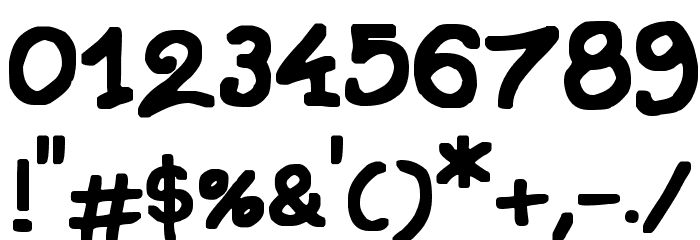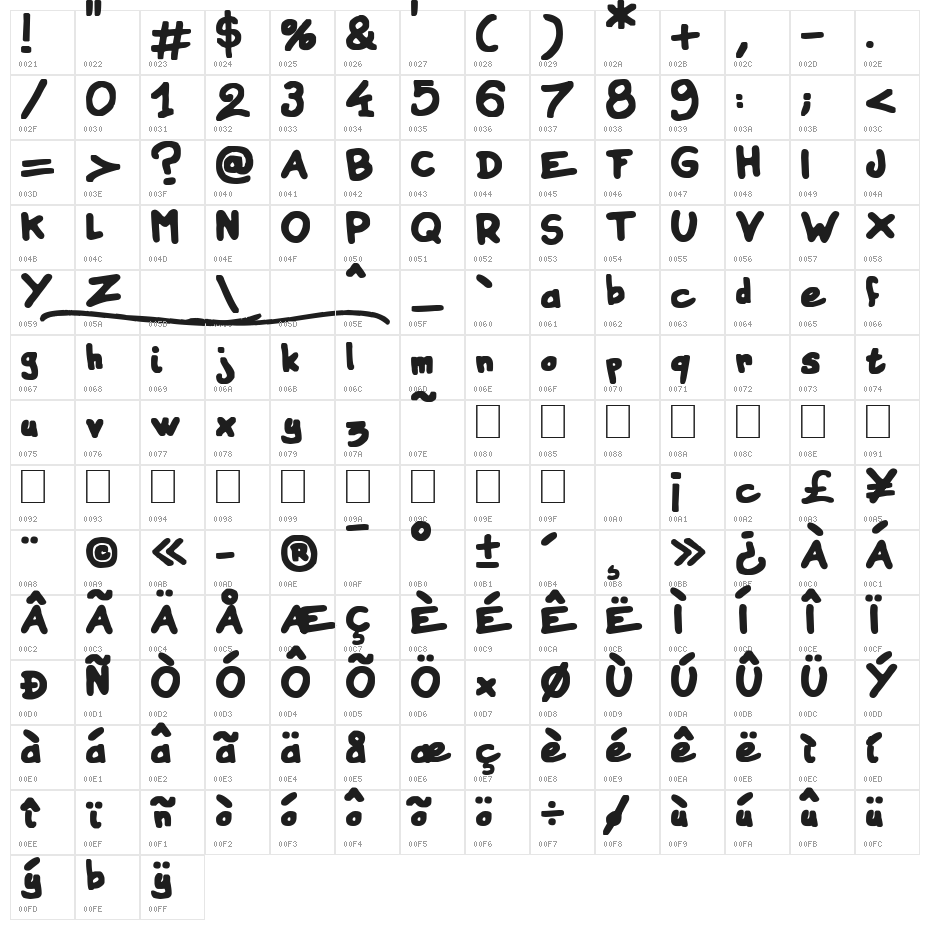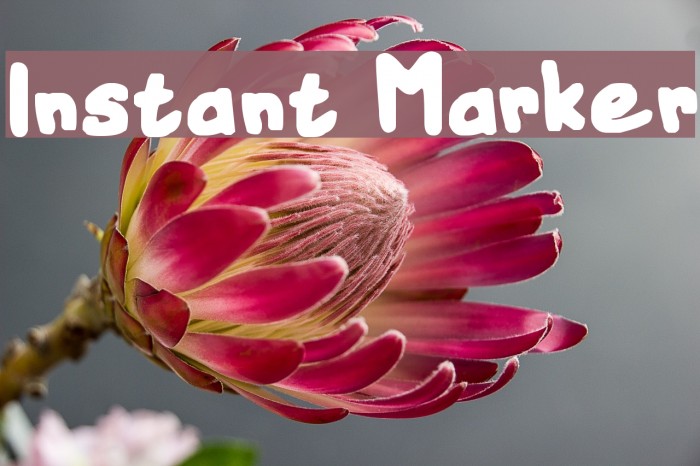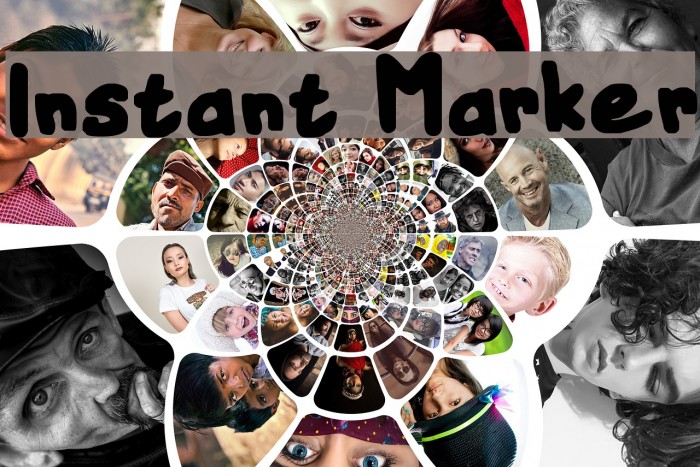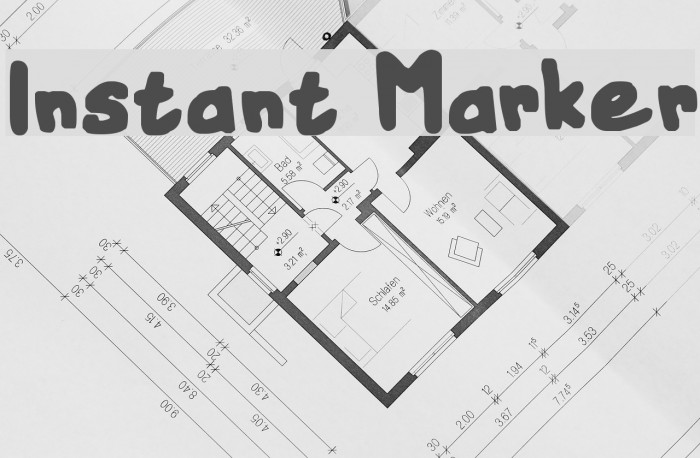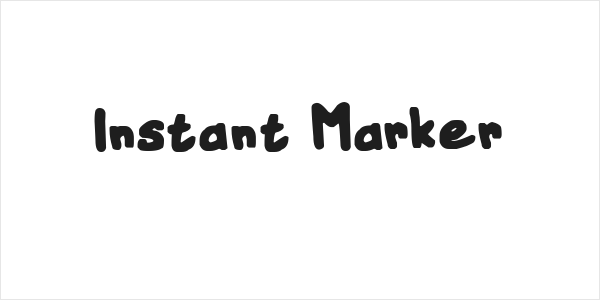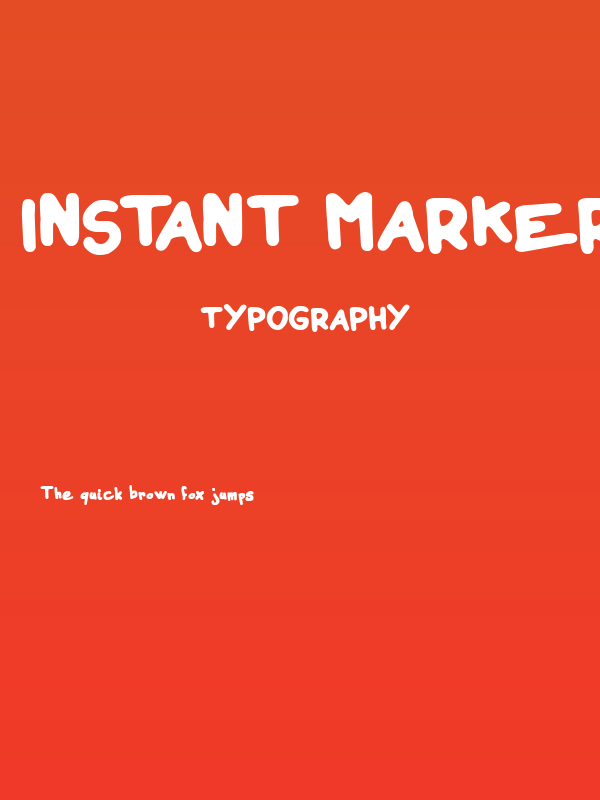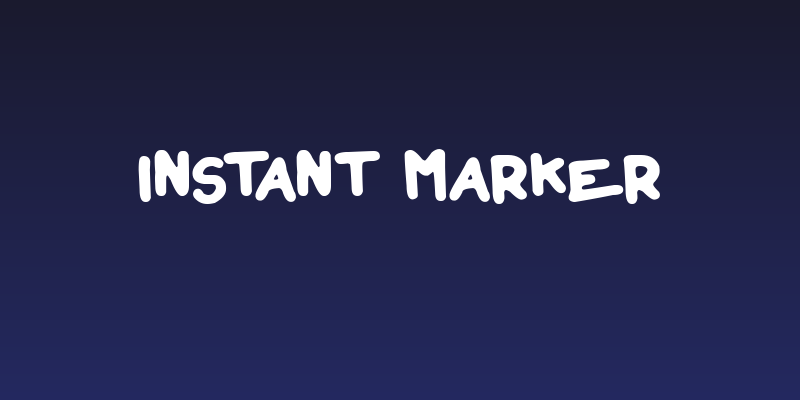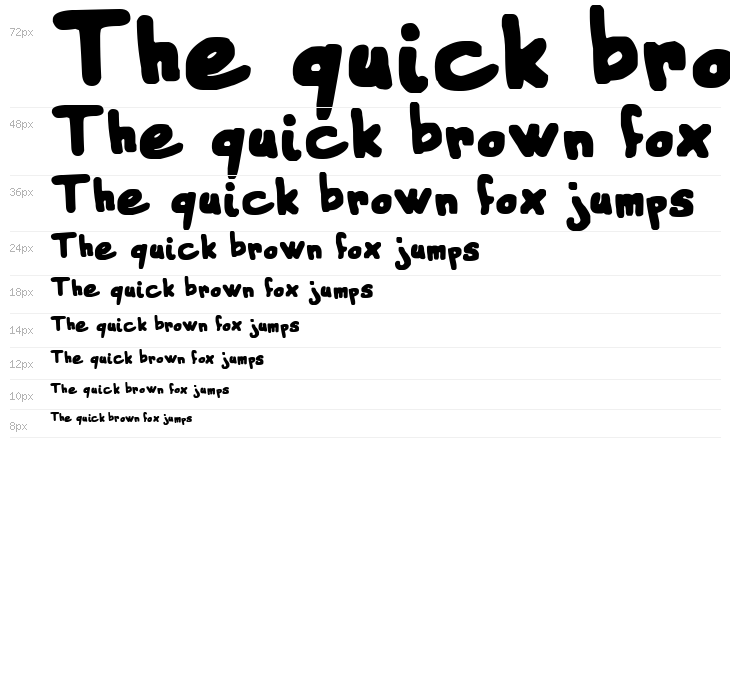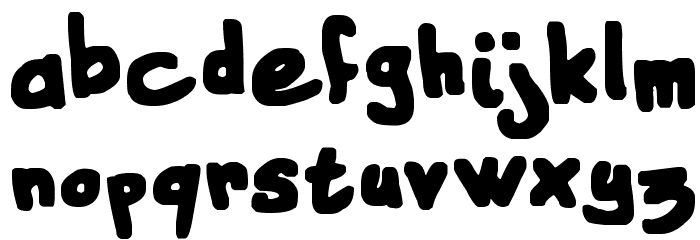
Instant Marker Font
Instant Marker Description
This playful and bold font features a hand-drawn, marker-like appearance with rounded edges and a casual, informal style. The letters are thick and slightly irregular, giving them a lively and energetic feel. The uppercase and lowercase characters maintain a consistent style, with a slight slant that adds to the dynamic look. Numbers and special characters are equally bold and expressive, making this font suitable for attention-grabbing designs. Its unique style is reminiscent of handwritten notes or doodles, perfect for projects that require a personal touch.
| Proposed Projects | Ideal for children's books, comic strips, playful branding, and casual event invitations. |